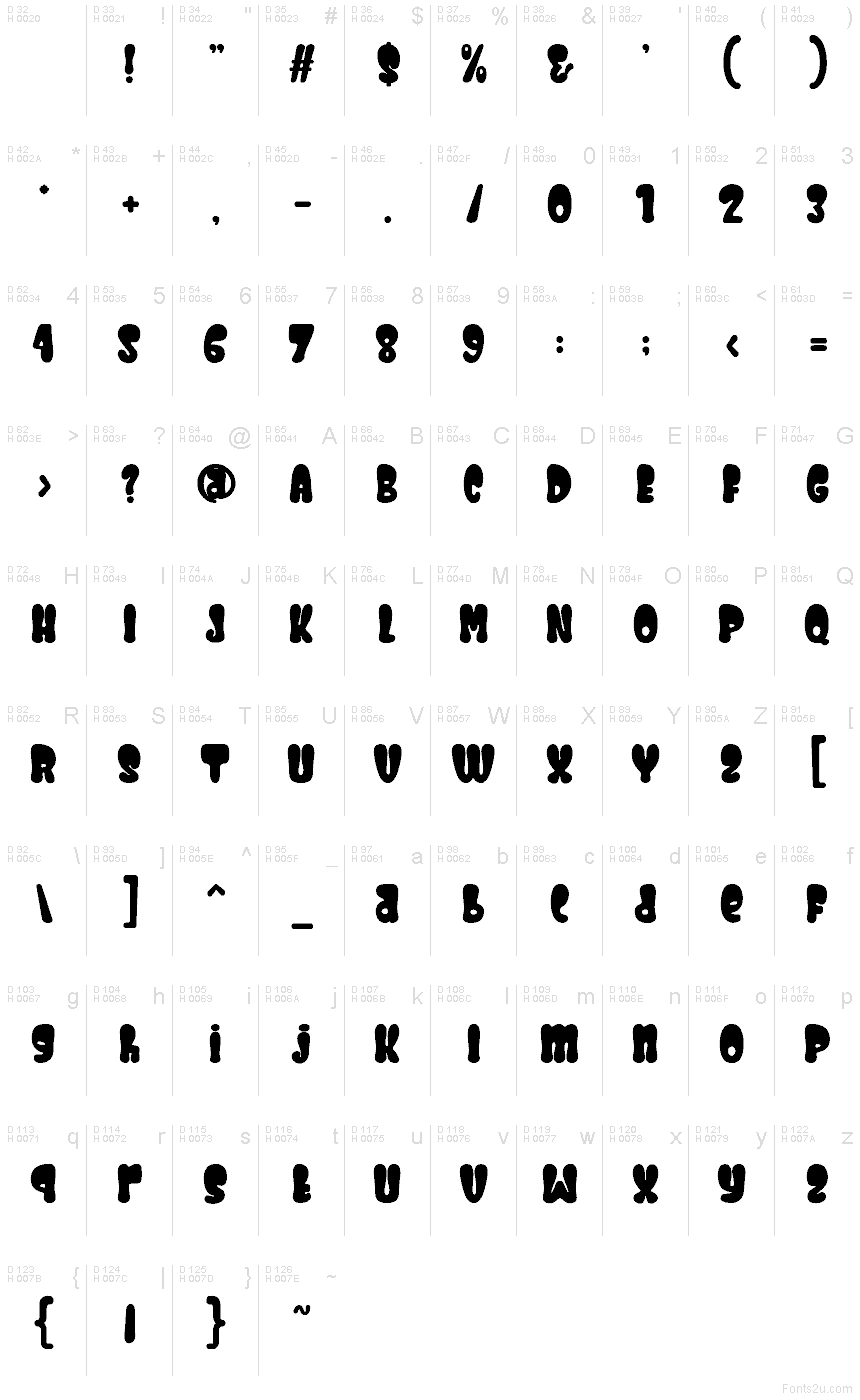
Stick Figure Two
Stick Figure Two font by PutraCetol Studio is a groovy display font with a bold and condensed design. Retro-inspired yet casual, this organic typeface features smooth transitions and whimsical shapes. Each glyph exhibits free-flowing, slight diagonal movements that add an imperfect yet authentic flair.